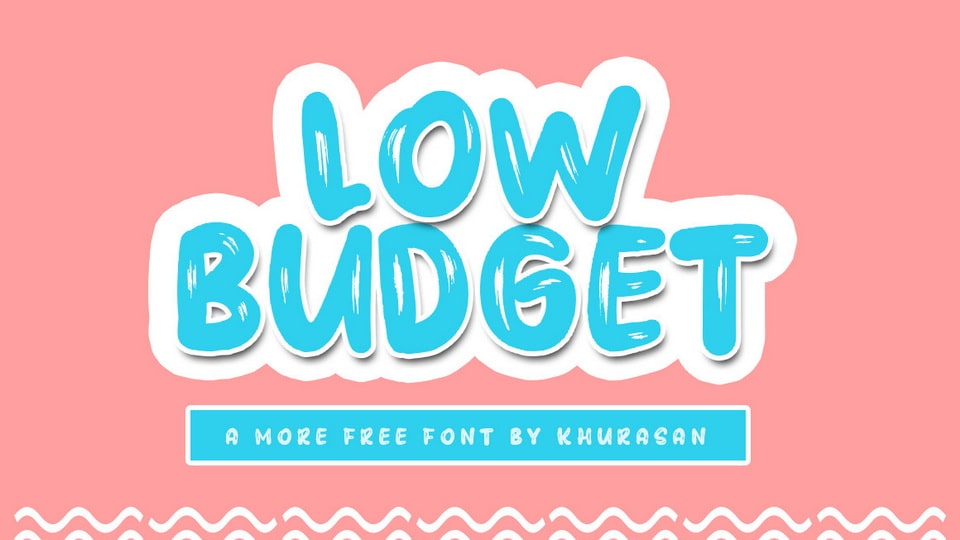
Download Low Budget font, a cool and funny display typeface with a playful look. Low Budget is perfect for posters, logos, magazines, book covers, banners, and many more.